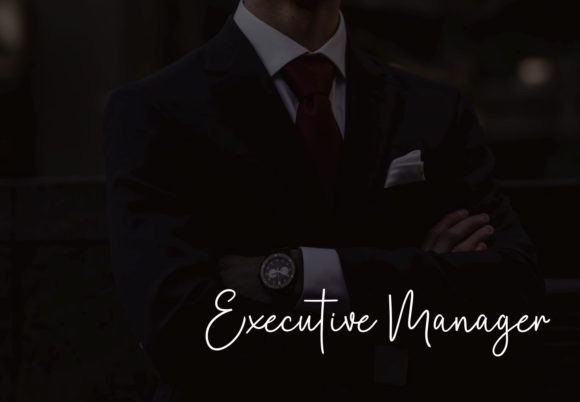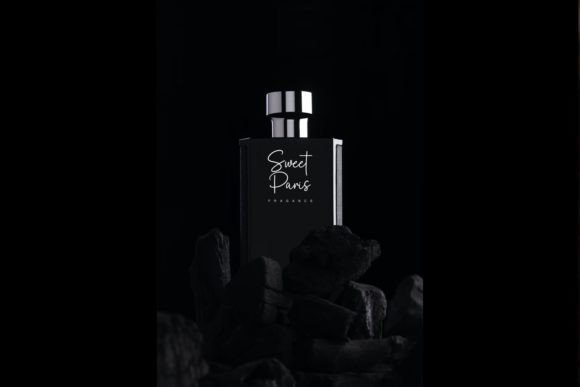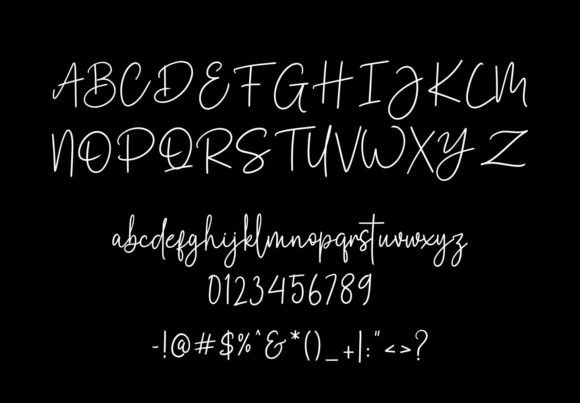
Introduction to Premium Signature Font
Have you ever stumbled upon a design that makes you stop and take a closer look? For many of us, it’s that perfect blend of elegance and whimsy that catches our eye. As a designer, I’ve experienced this moment countless times, and it’s often sparked a new creative project. Recently, I discovered the Premium Signature Font, and I’m excited to share its beauty with you.
This stunning handwritten font is more than just a design resource – it’s a game-changer for creatives looking to elevate their work. With its high-quality, transparent background, the Premium Signature Font is perfect for logos, wedding stationery, and photography watermarks. Whether you’re a seasoned designer or just starting out, this font is sure to become a valuable addition to your toolkit.
So, what makes the Premium Signature Font so special? Its unique, timeless style is both versatile and visually striking, making it an ideal choice for modern websites, branding materials, and more. In this article, we’ll dive deeper into the world of this amazing font and explore its many uses.
Key Features of Premium Signature Font
- Unique, hand-crafted design with exclusive characters and glyphs for a premium touch.
- Large character set (over 1000 glyphs) for comprehensive language support and versatility in creative projects.
- High-quality design with precise strokes and subtle details for a sophisticated look and feel.
- Perfect for personal branding, business logos, and other design elements requiring a premium signature look.
Honest Review: Premium Signature Font
As a designer, I’m always on the lookout for high-quality design resources to elevate my creative projects. The Premium Signature Font is one of the latest additions to my collection, and I’m excited to share my thoughts on it.
- Unique and stylish design that sets my brand apart
Overall, I’m really impressed with the Premium Signature Font. It’s a great addition to my design library, and I’ve already used it on several projects. The font is versatile, and the transparent background option makes it easy to use in a variety of design contexts.
- No bold or italic versions of the font available
- Only available in a limited range of font sizes
Despite these limitations, I still highly recommend the Premium Signature Font to fellow designers. Its unique design and high-quality files make it a valuable addition to any design library.
The Premium Signature Font is perfect for creating a professional-looking logo, business card, or letterhead. You can also use it to add a personal touch to your social media graphics or website design.
Can I use the Premium Signature Font on a transparent background?
Yes, the Premium Signature Font has a transparent background, making it easy to use on complex designs with multiple layers. This feature also allows designers to create unique and visually striking effects.